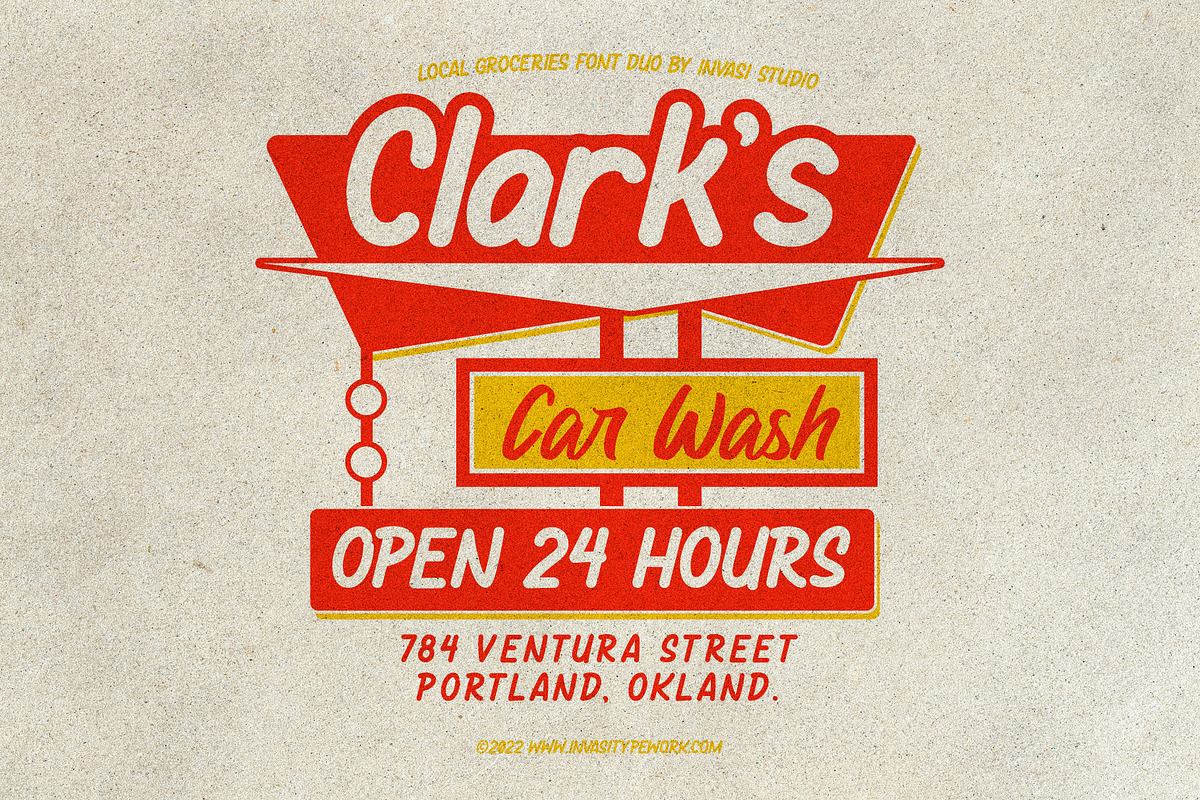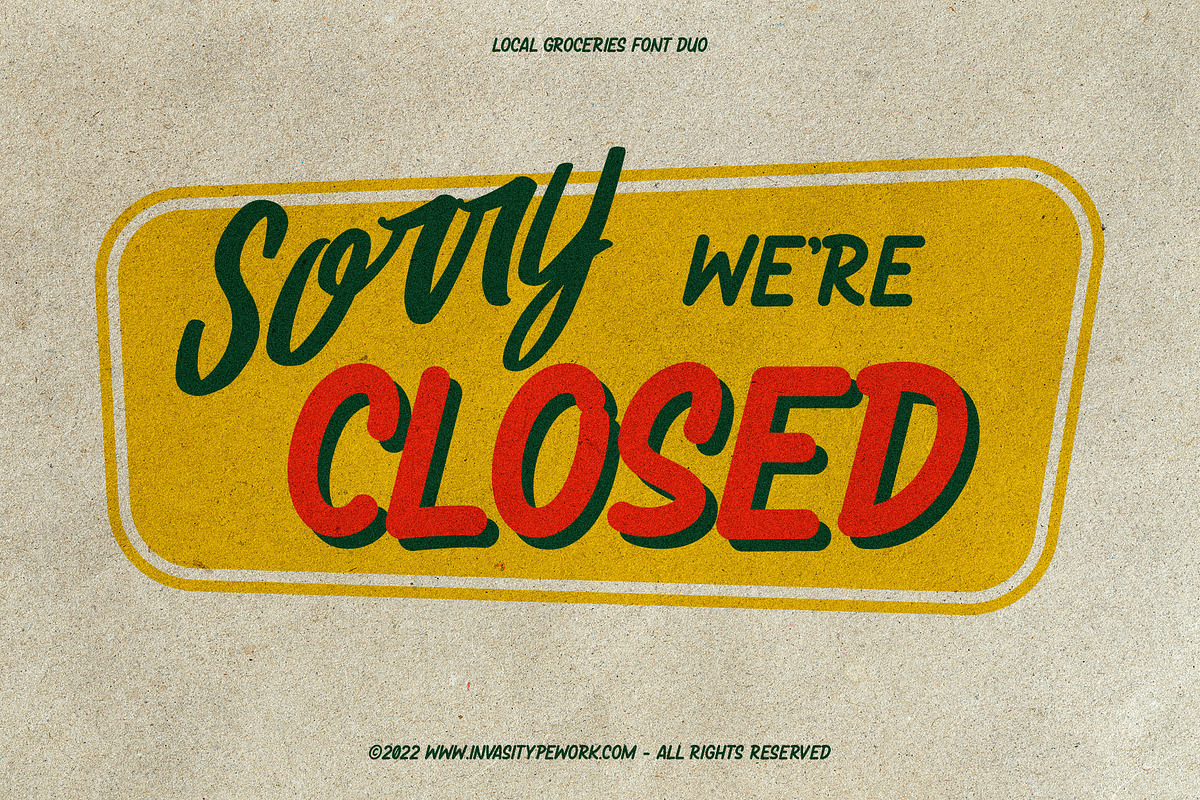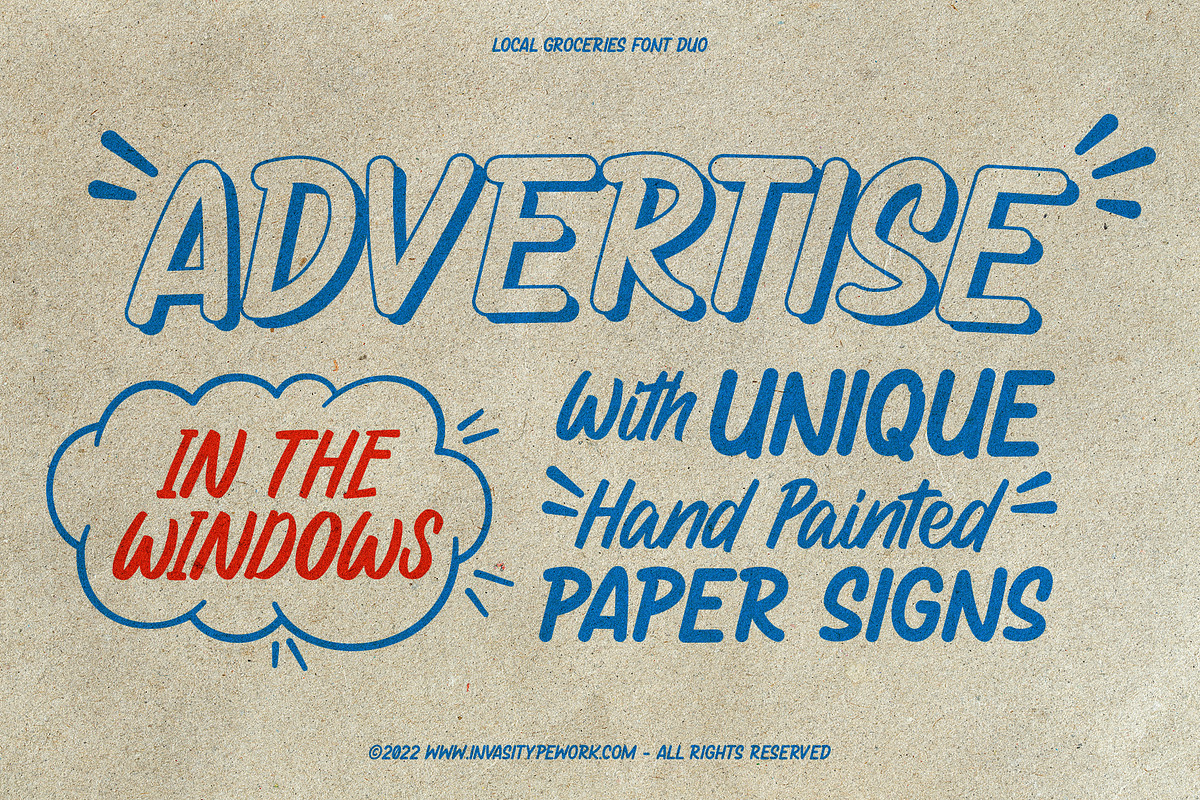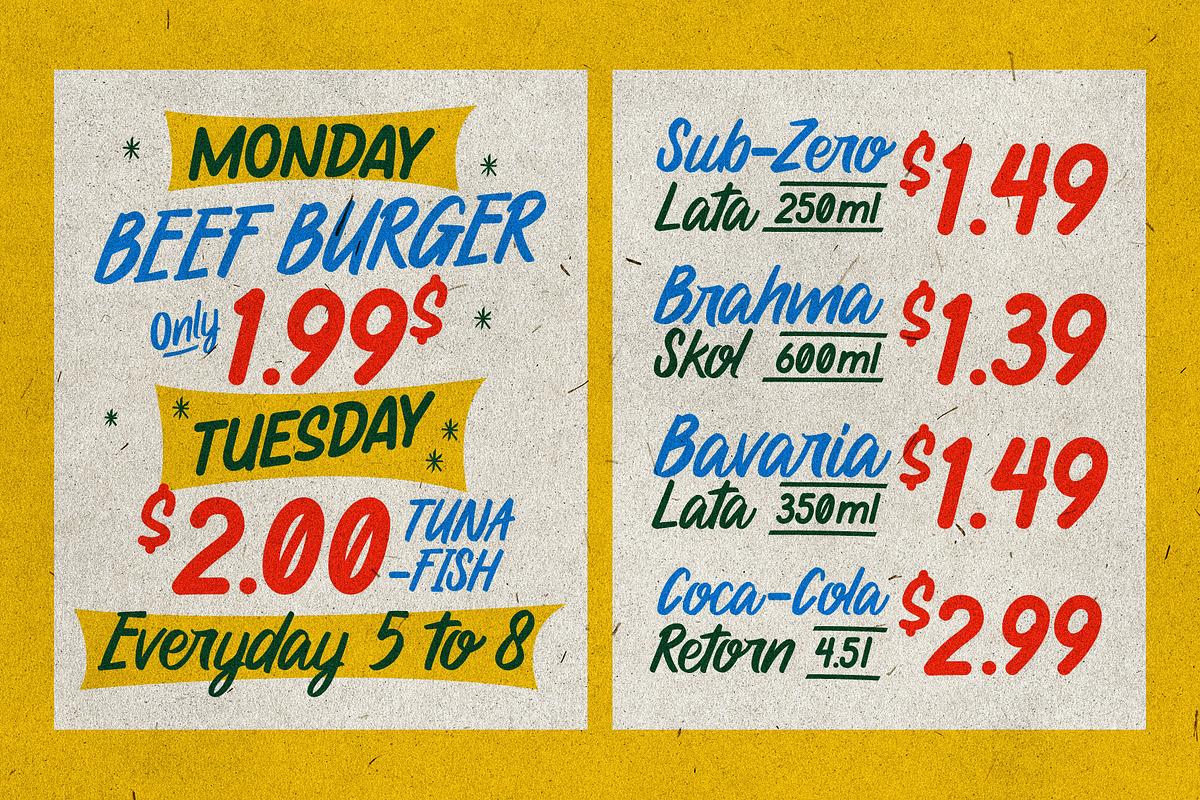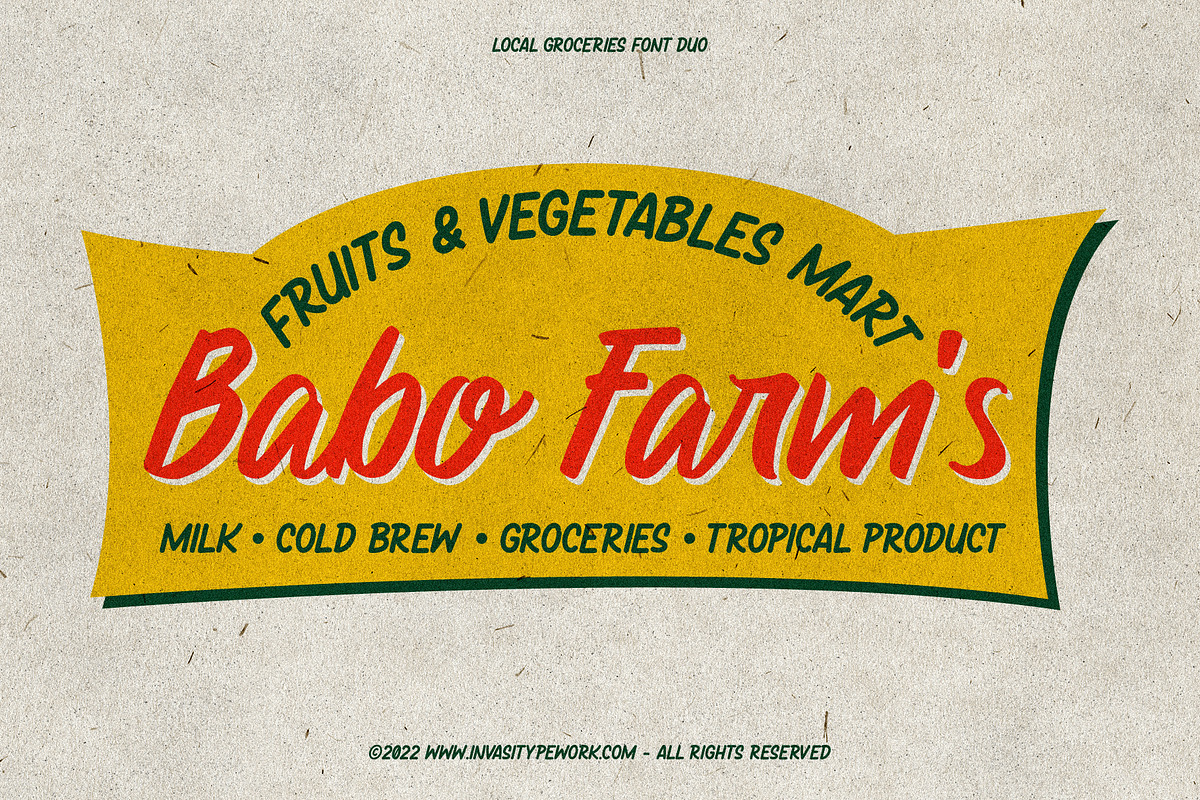
Local Groceries - Vintage Sign Duo
Inspired by the hand-painted paper signs typically seen in grocery stores during the 1920s to 1970s. This is now available in a digital format that still has the appearance and feel of hand-painted letters. Take a look at a few samples in the thumbnails to see what you can do with them.
Local Groceries comes with a combination pairing font. It combines both regular and script fonts. Local Groceries is suitable for vintage and contemporary marketing, branding, merchandise, and packaging designs.
- Alternates and Ligatures